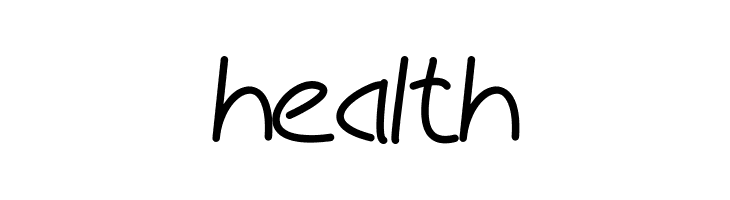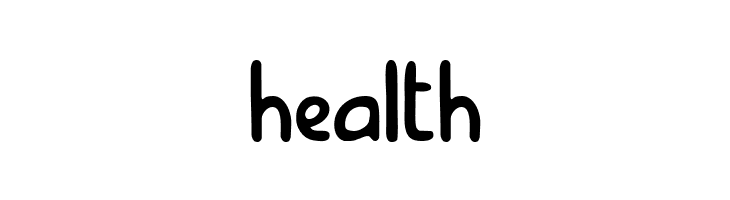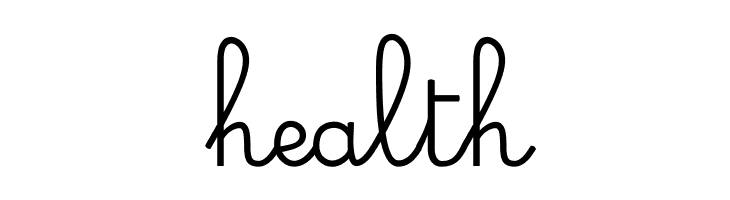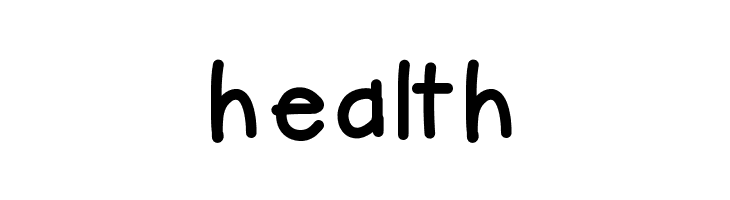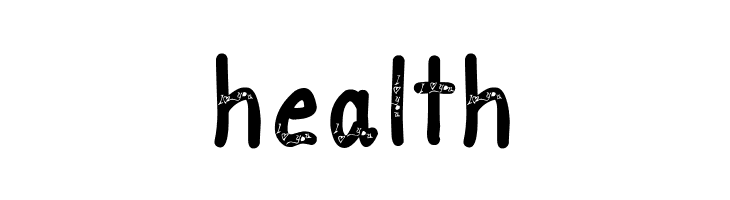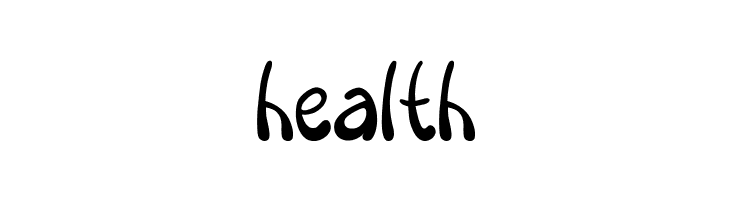
( Ink creative - creativemarket.com/inkcreativeart/ )
A fluid, cursive handwritten font with a signature-like style.
( Irvan R )
A playful, casual handwritten font with smooth curves and dynamic strokes.
( Iskoan )
A playful, rounded font with smooth curves and a friendly appearance.
( JBFoundry - Jean Boyault - jean.boyault.pagesperso-orange.fr/ )
A playful and elegant script font with a handwritten appearance.
( JOEBOB graphics - Joe vanderHam - www.joebob.nl )
A handwritten, casual font with dynamic strokes and a personal touch.
( Jason NG )
A playful, handwritten font with rounded edges and a casual style.
( Jen Jones - www.jenjonesfonts.com )
A playful, hand-drawn font with rounded, friendly characters.
( José Melendez )
A playful, heart-embellished handwritten font with a whimsical and romantic style.
( Kelsey Ann G )
A charming, elegant handwritten font with fluid, slightly italicized strokes.
( Kelsey Punch )
A playful, hand-drawn font with rounded, irregular letterforms and a whimsical style.